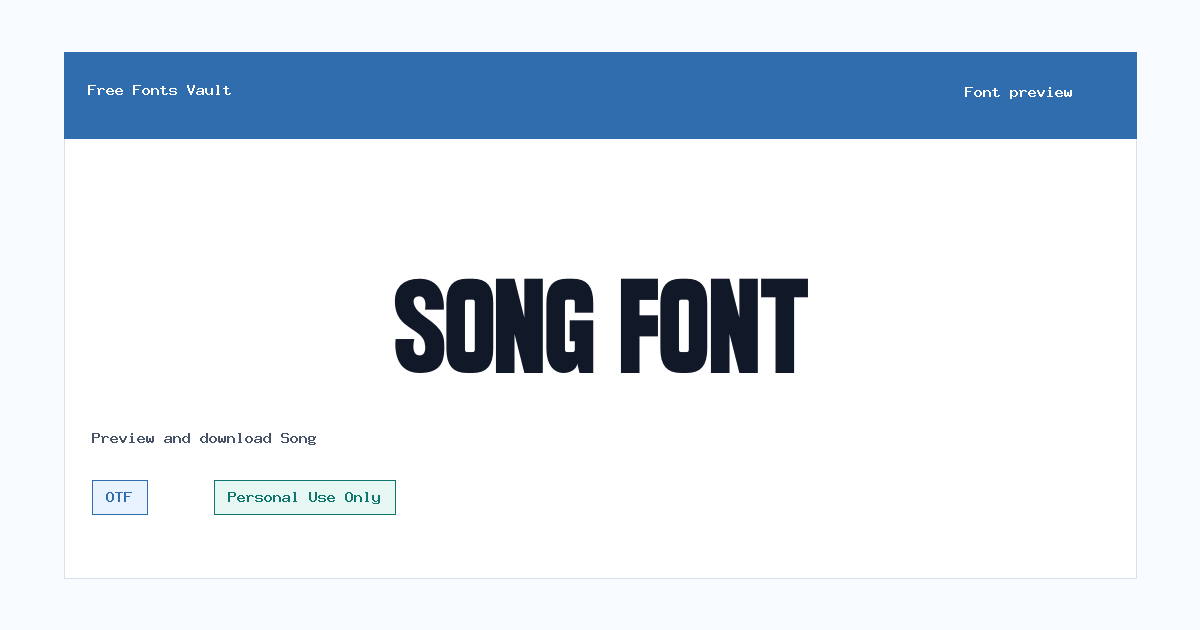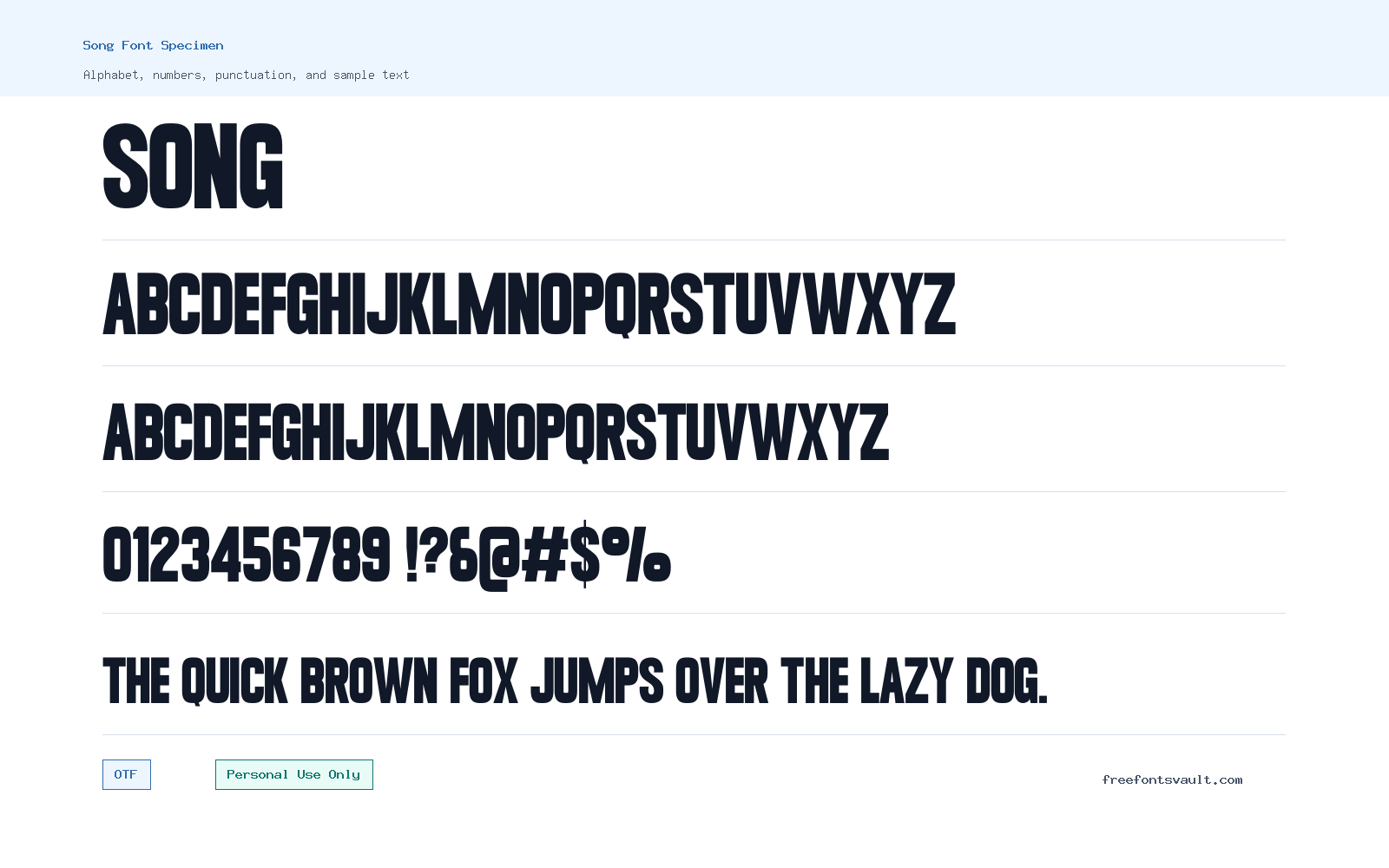
Song
Song font.
Song is a personal-use font family with a regular OTF style that visitors can preview before downloading. It is best approached as a display or short-text typeface until you test how it performs in your own layout.
About Song Font
Song is listed as a sans serif font and comes in a regular style with normal weight. Because the available file is a single OTF variant, it is most useful when you need one clean style rather than a full family with bold, italic, or multiple weights. Use the preview tool to check the spacing, letter shapes, numbers, and punctuation before deciding where it fits.
For best results, test Song with the exact words you plan to use. Try it in headings, labels, posters, thumbnails, social graphics, or short website sections where a single regular weight is enough. If you need long paragraphs, small captions, app interfaces, or print work at very small sizes, preview those sizes carefully first. A one-style font can still be useful, but it may need support from a more complete text font for body copy, emphasis, and hierarchy.
- Single normal-weight style suited to short text and display testing
- Headlines, titles, and simple display text
- Personal posters, graphics, invitations, and creative mockups
What is Song best used for?
It is best suited to personal projects that use short text, such as titles, posters, simple graphics, invitations, and design experiments.